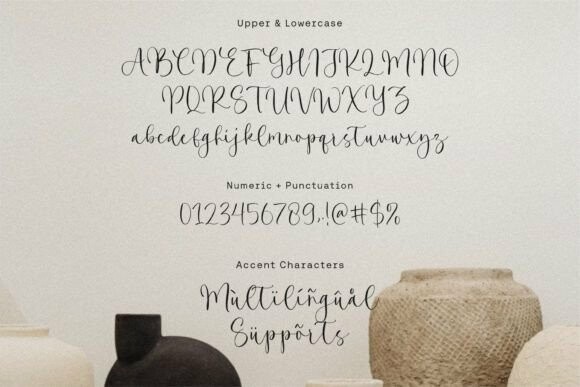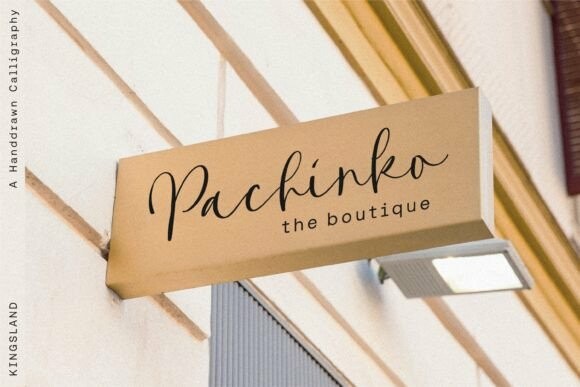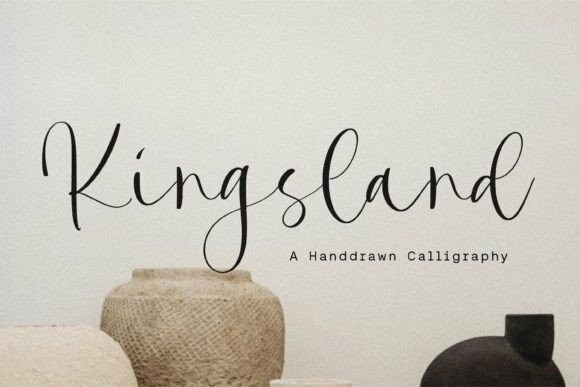
Kingsland Script Font
Designer: Balpirick
Kingsland Script Font is a handdrawn calligraphy font that’s perfect for adding an elegant touch to your design projects! With its natural, organic feel and unique character. Crafted with care and attention to detail, this font is incredibly versatile and can be used for a range of design projects, including logos, branding, invitations, and more. Its modern, handwritten style gives it a unique character that’s sure to make an impact.